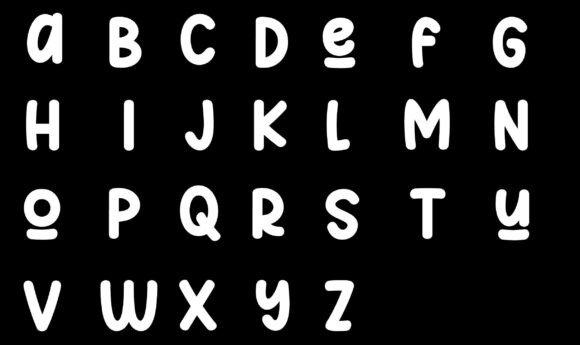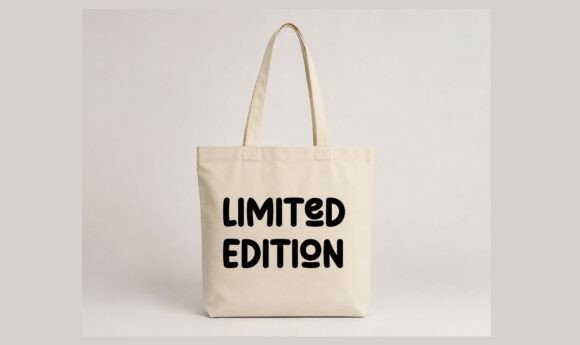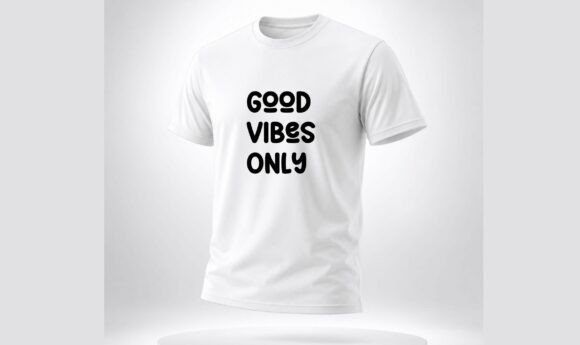
Introduction to Color Scrawl Font
Bursting with a youthful energy, Color Scrawl is a bold display font designed for maximum joy and visual impact.
This typeface features heavy, rounded letterforms that echo the uninhibited creativity of hand-drawn art Its chunky silhouette and rhythmic, organic curves make it an extraordinary choice for festival branding, children’s event graphics, toy packaging, and high-energy social media content.